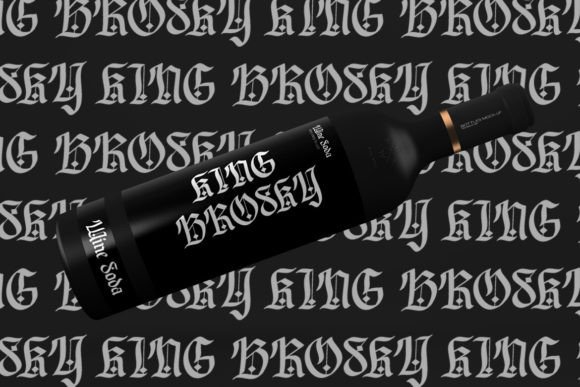
Foldaky Shield Font
Foldaky Shield is a stylish blackletter font with a bold and edgy design. It features sharp, decorative letters that give a medieval and gothic feel. Perfect for creating striking logos, posters, and headlines that need a strong and unique look.